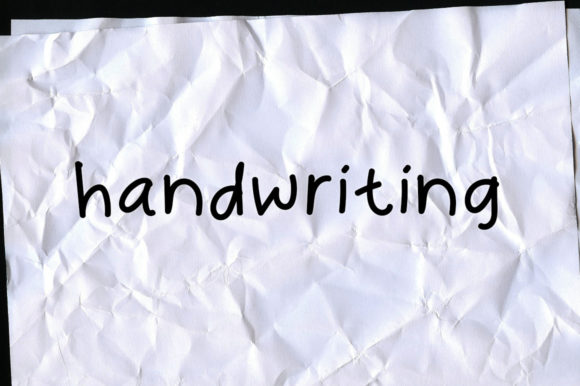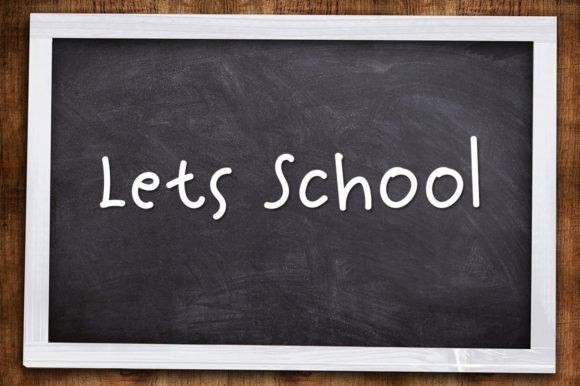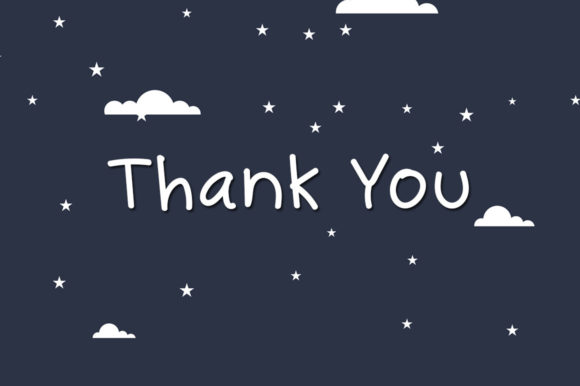
Introduction to My Ugly Font
Meet My Ugly Font, a stunning and elegant handwritten font that exudes joy and sophistication. With its clean lines and high-quality design, this font is perfect for both formal and informal projects, and can be easily downloaded with a transparent background for seamless integration into your designs.
As a valuable asset for designers, My Ugly Font offers endless possibilities for creative expression, and its free download makes it an accessible and affordable choice for anyone looking to elevate their design game.
Key Features of My Ugly Font
- High-quality, unique font design ideal for creative projects and designers seeking a distinctive look.
- Designed to be versatile, suitable for use in logos, typography, and other creative projects.
Honest Review: My Ugly Font
I recently stumbled upon My Ugly Font while searching for a quirky, unique font to spice up my design projects. As a designer, I appreciate a good design resource that can bring creativity and personality to my work. My Ugly Font definitely delivers on this front.
- ✨ Unique character sets: My Ugly Font offers a range of quirky, playful characters that can add a touch of whimsy to any design project.
- ✨ High quality: The font is crisp and clear, making it perfect for both digital and print designs.
- ⚠️ Limited customization options: While the font itself is high quality, there aren’t many customization options available, which may be a drawback for some designers.
- ⚠️ Transparent background: Some of the characters may have transparent backgrounds, which can make them tricky to use in certain design situations.
Overall, I’m impressed with My Ugly Font’s unique character sets and high quality. While it may have some limitations, it’s a great addition to any designer’s creative project arsenal. I’ll definitely be using it again in the future.
Tips for Getting the Most Out of My Ugly Font
My Ugly Font is a high-quality design resource that can be used in a variety of creative projects. To get the most out of it, try combining it with other design elements, such as images and graphics, to create a unique and eye-catching look. You can also use the font on a transparent background to create a more subtle design.
My Ugly Font is a free download that can be used in a variety of creative projects, including posters, flyers, and social media graphics. It’s also great for use in business presentations and documents, such as reports and proposals. With its high-quality design and transparent background, My Ugly Font is the perfect addition to any design project.